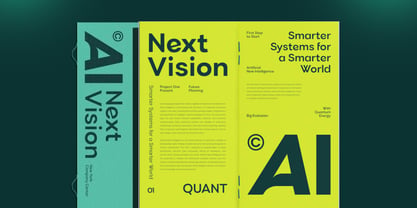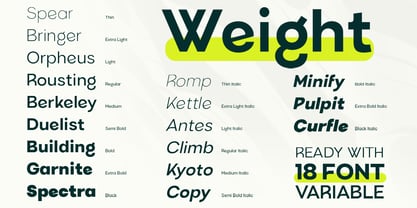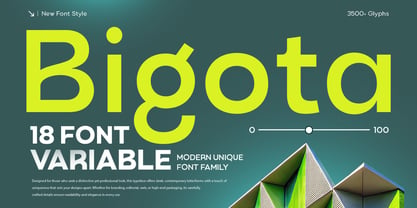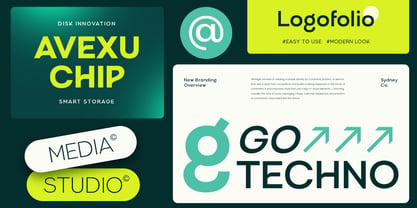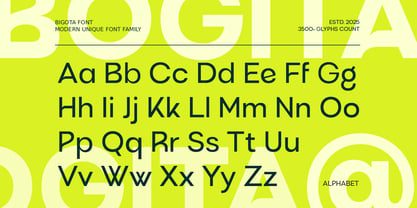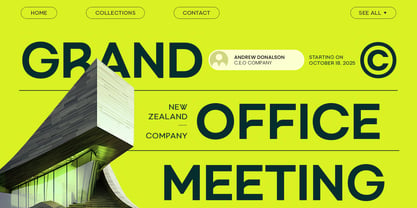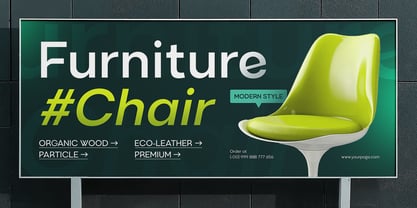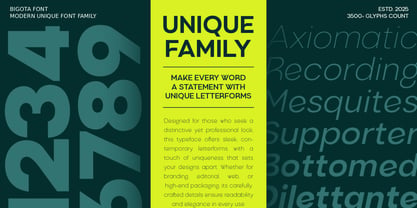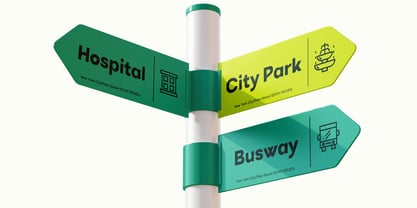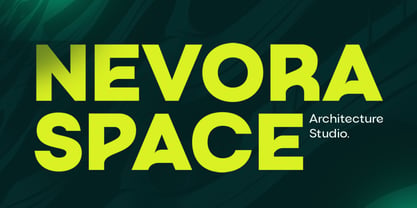
BIGOTA is a modern unique font family designed to bring refined simplicity and strong visual identity to your branding. With clean geometry, smooth curves, and distinctive letter shapes, this typeface is perfect for logos, packaging, editorial layouts, and modern digital applications.
The family includes multiple weights, allowing you to build a complete and cohesive design system — from bold headlines to subtle body text. BIGOTA brings versatility, professionalism, and a fresh contemporary feel, making it ideal for design studios, lifestyle brands, tech startups, and creative businesses.
Inspired by modern minimal aesthetics, BIGOTA blends clarity with character, resulting in a type family that stands out while remaining beautifully functional across all media.
Complete modern sans serif family with multiple weights
Perfect for branding, packaging, websites, and editorial design
Distinctive geometric shapes for a stylish unique identity
Ideal for corporate, creative, fashion, and tech industries
Uppercase, lowercase, numerals, and punctuation included
OpenType features for advanced typographic creativity
Build a clean, modern, and distinct identity with BOGITA – the ultimate font family for creative, minimal, and professional branding. ✨
Bigota